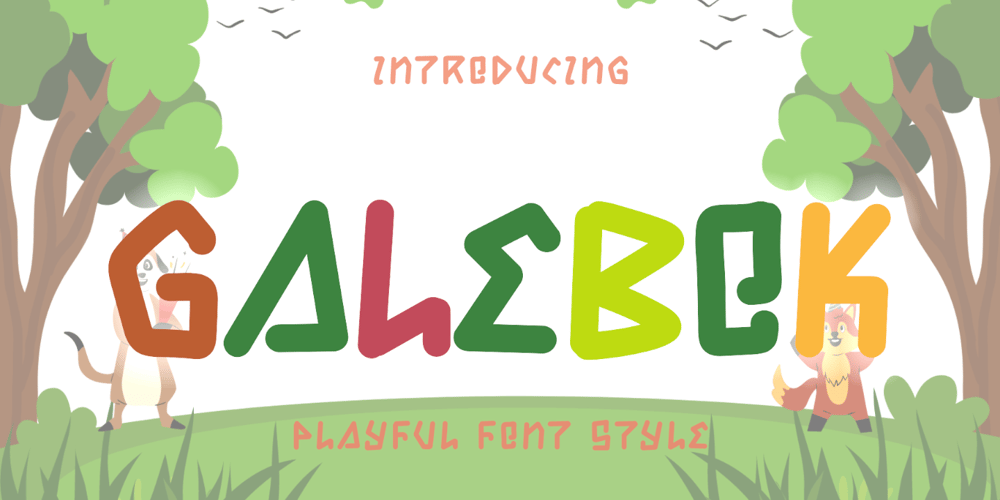
Galebok Font Family was designed by Isroni Yoga Prasetya and published by Yoga Letter. Galebok contains 1 styles and family package options. “Galebok” is a unique and cute display font. This font is equipped with uppercase, lowercase, numerals, punctuation, and multilingual support. very suitable for children’s toys, logos, children’s book titles, funny film titles, comics, logos, banners, posters, branding, stickers, and others.